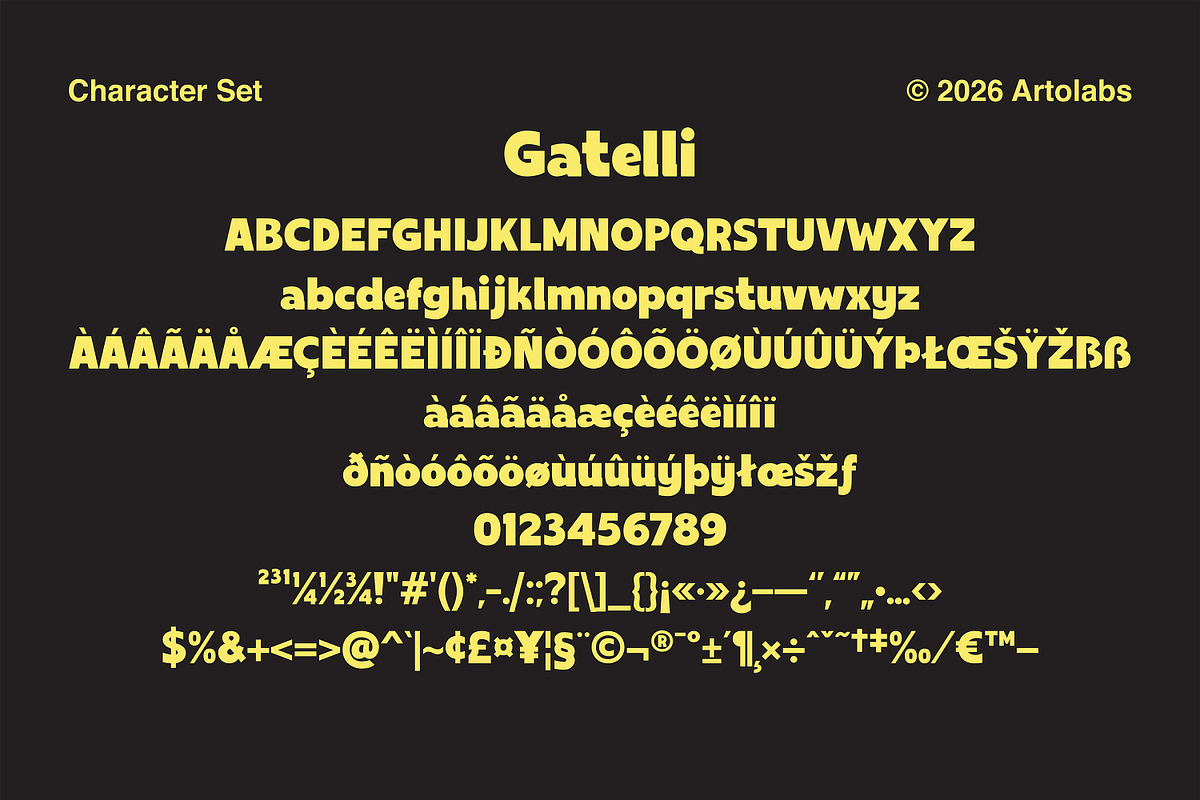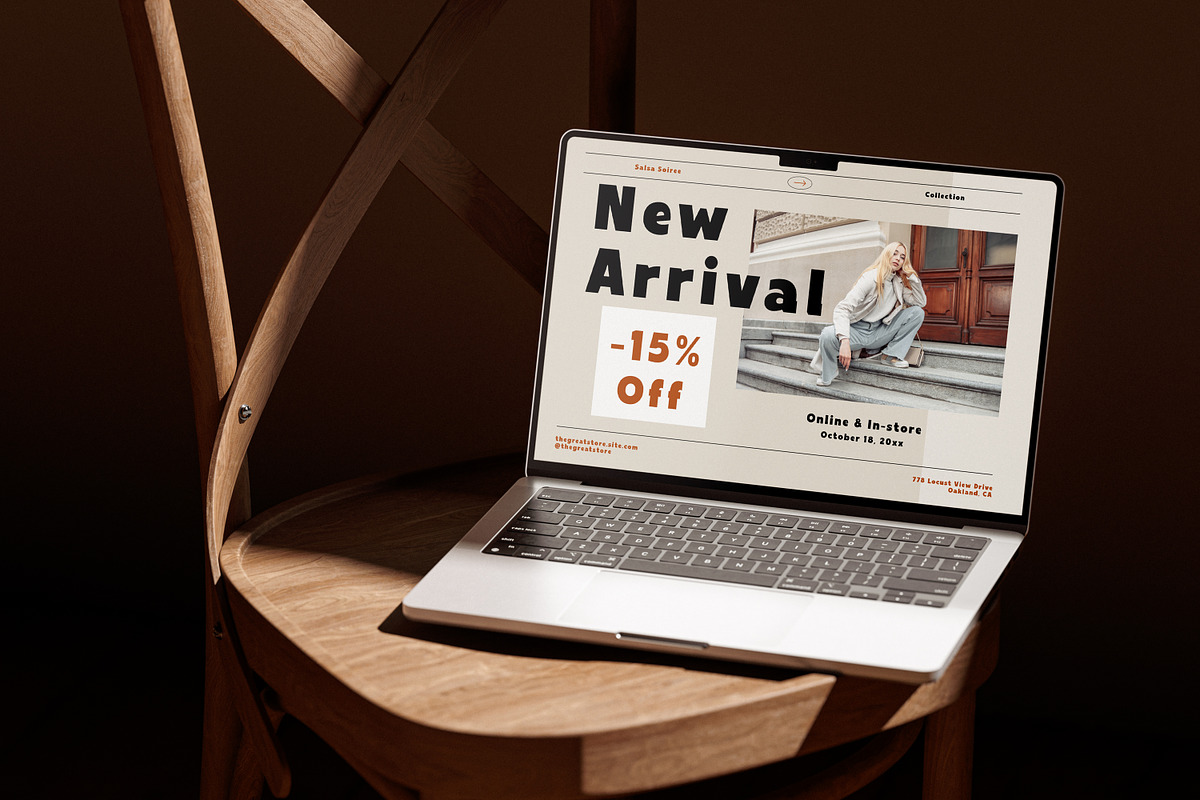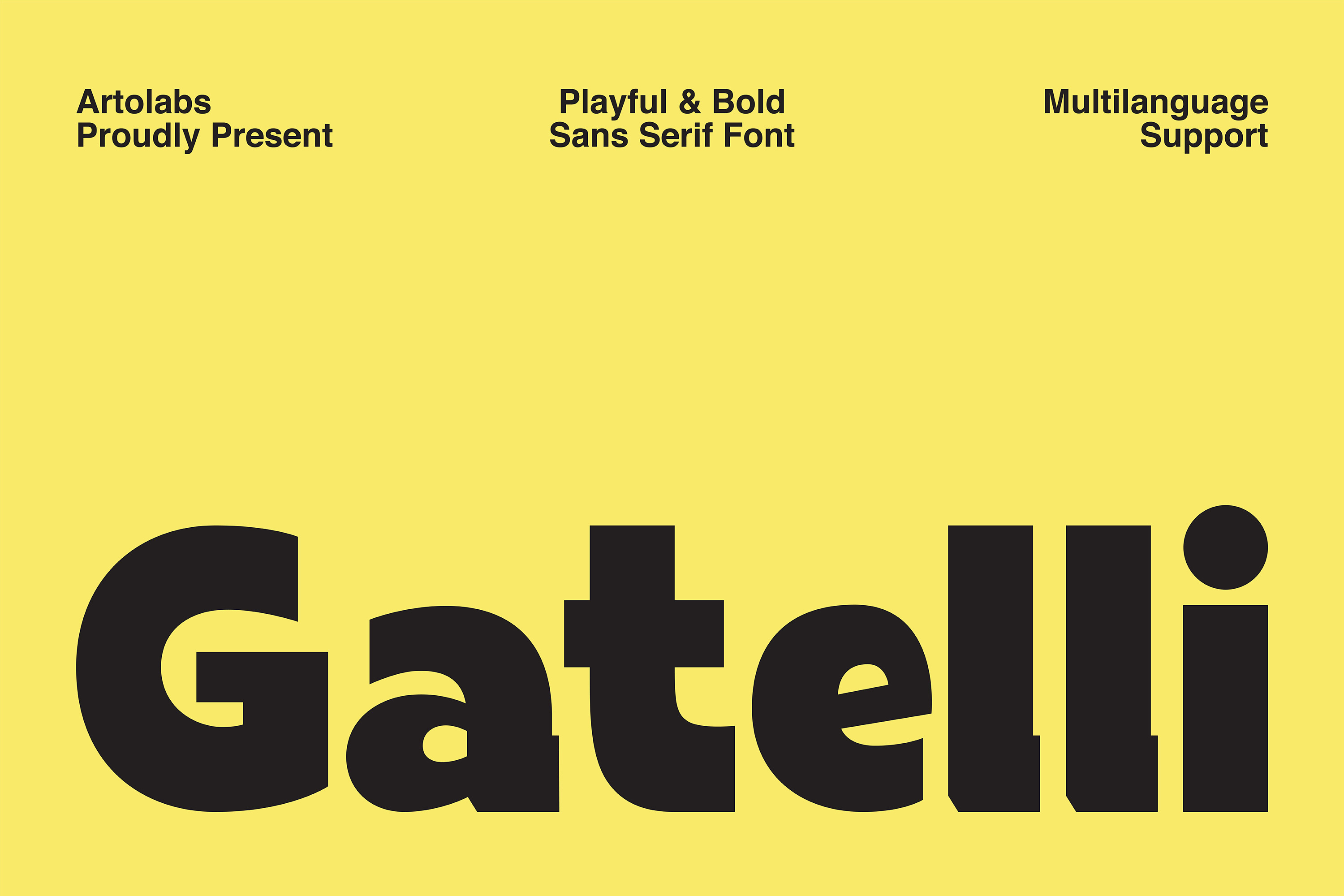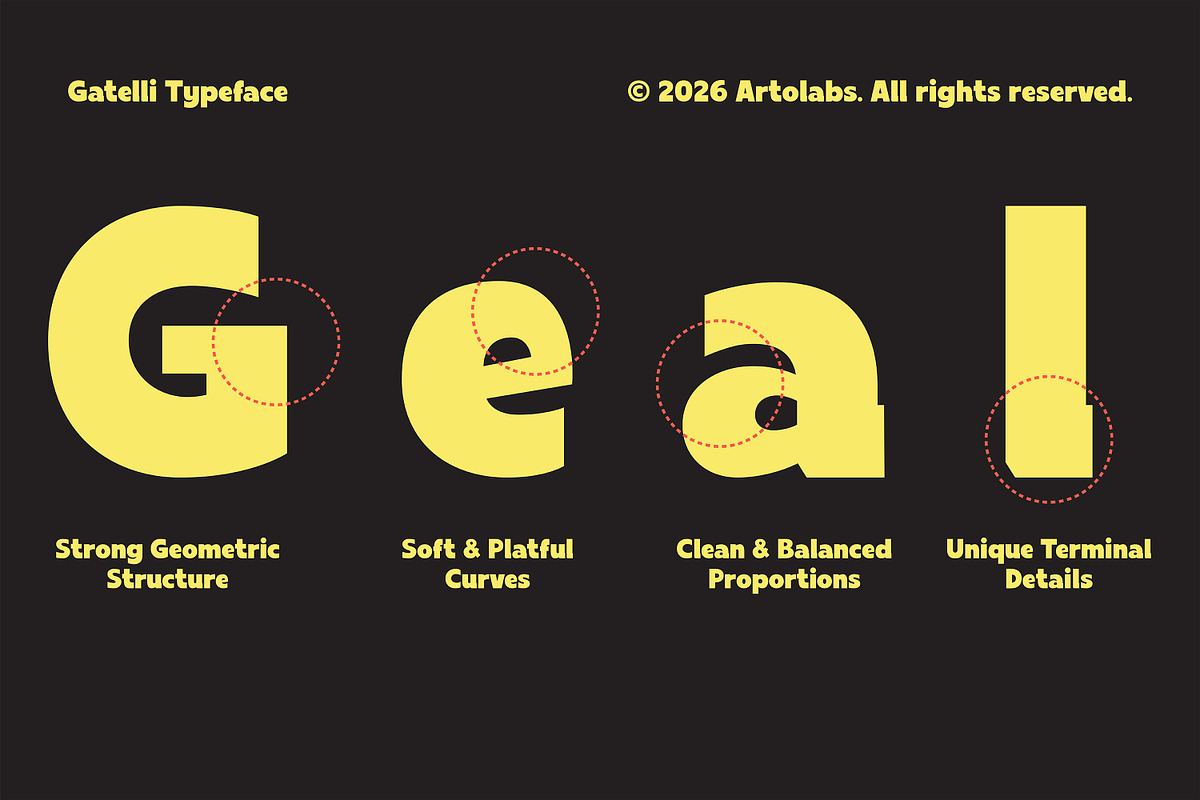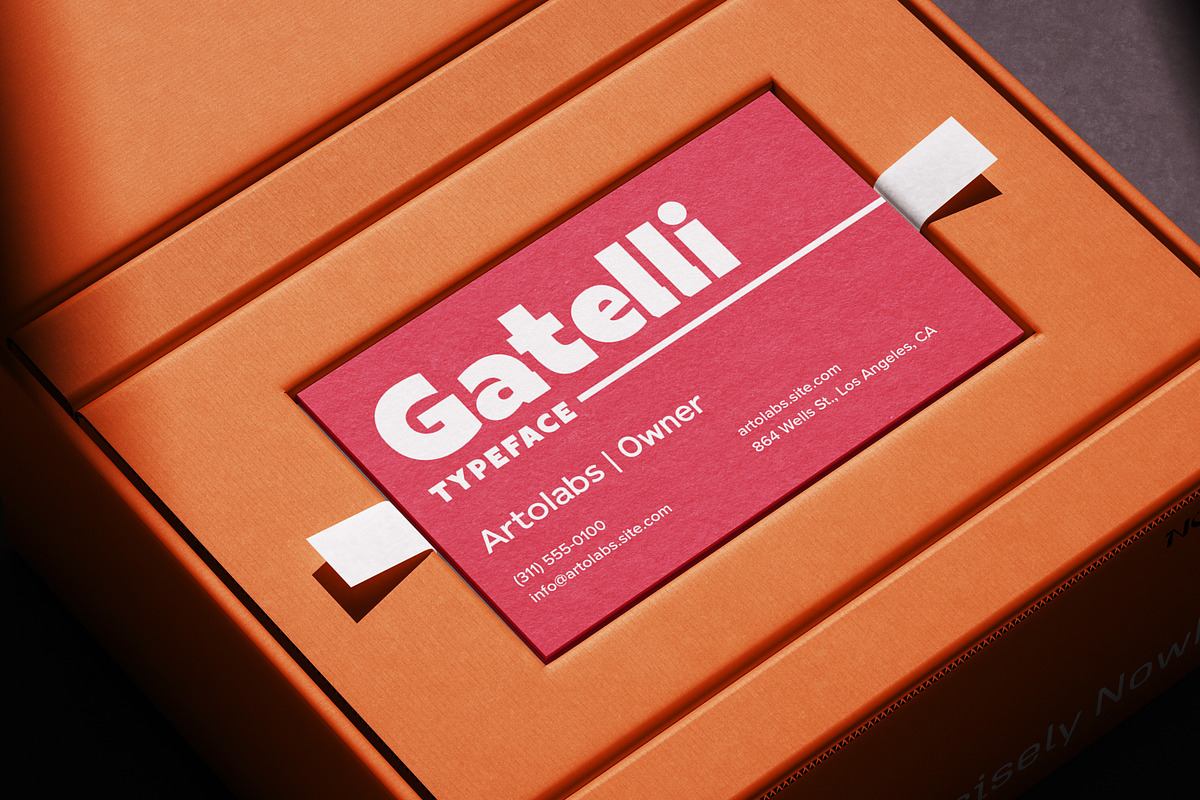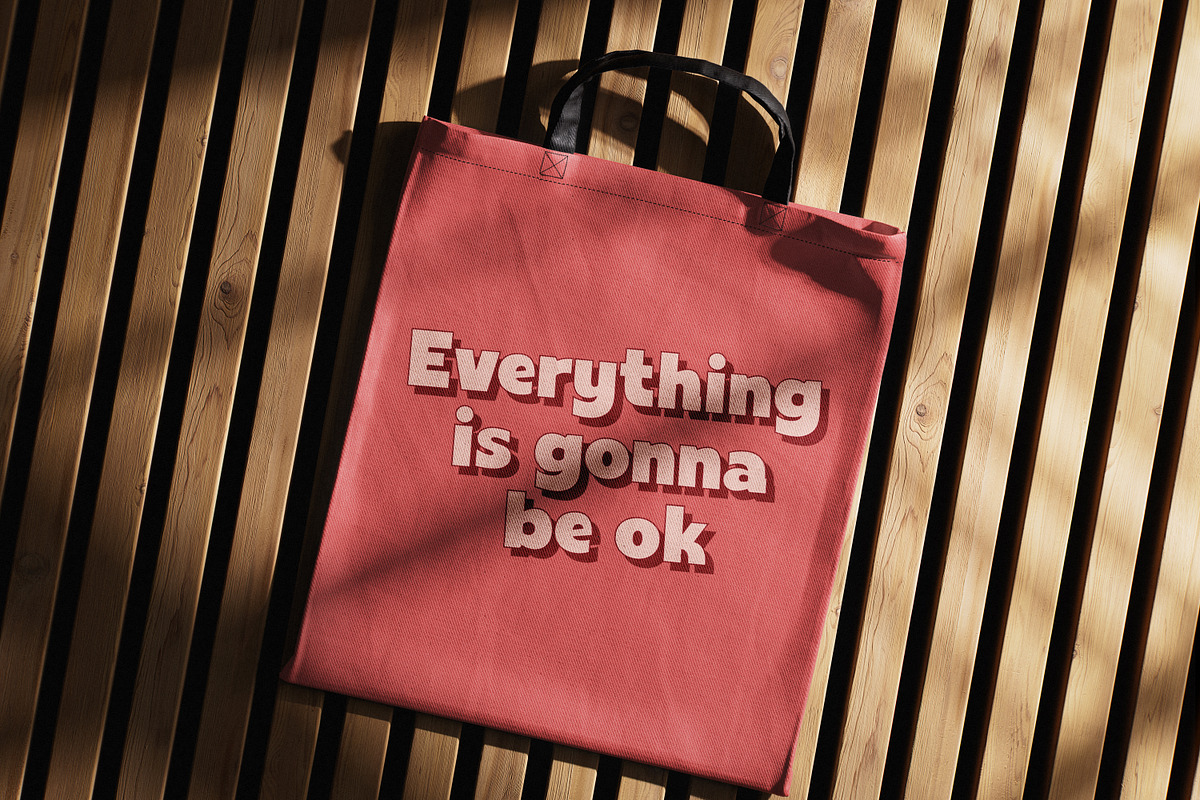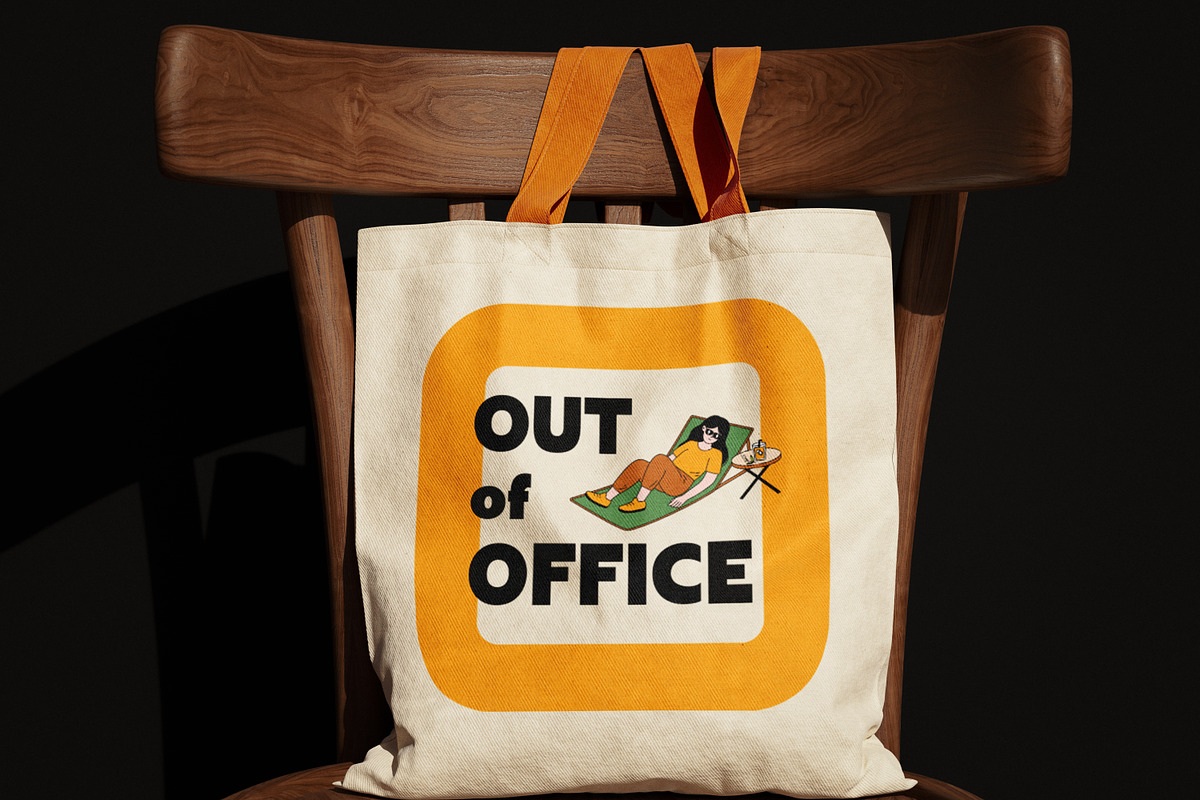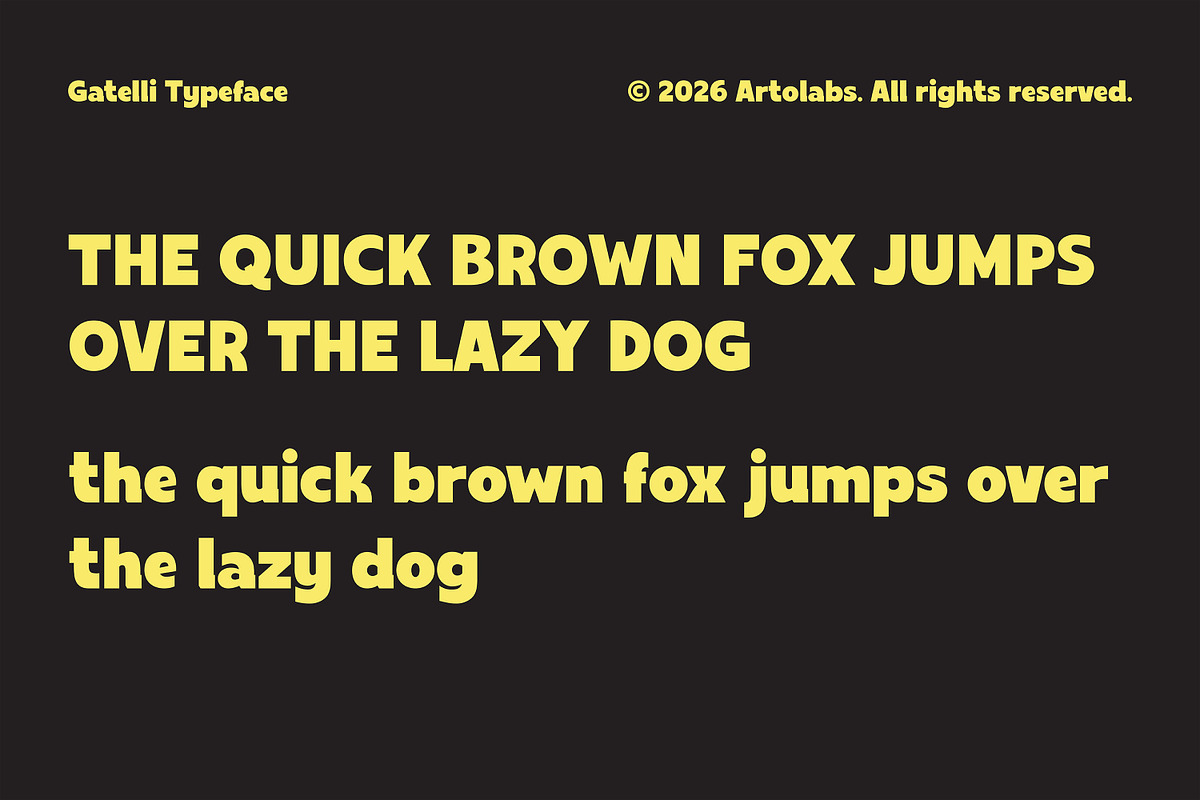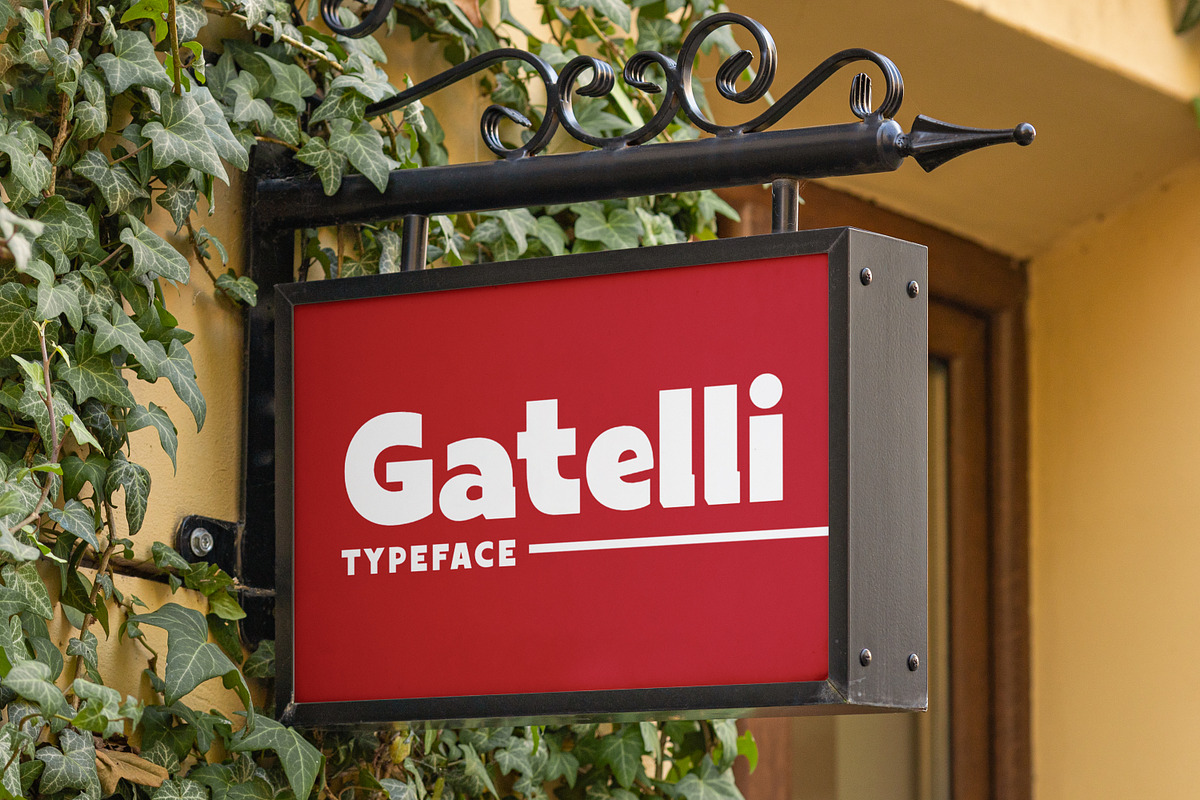
Gatelli | A Bold Geometric Sans Font
Gatelli is a bold, geometric sans serif font with a strong structural presence. Its chunky letterforms combine soft, playful curves with clean, balanced proportions for a confident yet approachable look.
Distinctive terminal details give each letter extra character, making Gatelli a versatile choice for both bold headlines and clean, modern branding. With multilanguage support, it adapts easily to a wide range of projects.
Logos & brand identity
Poster & headline design
Packaging design
Website & app UI
Editorial & magazine layouts
Standard Character Set (Uppercase & Lowercase)
Numbers, Punctuation, & Symbols
Multilanguage Support